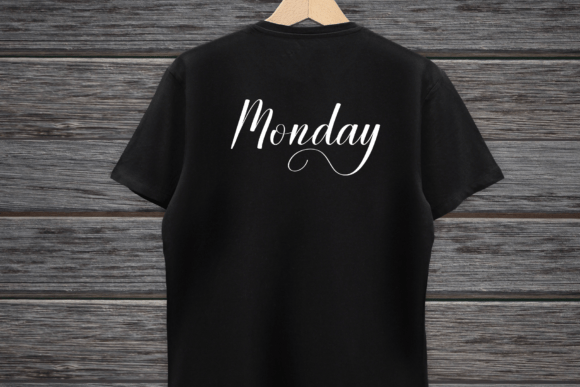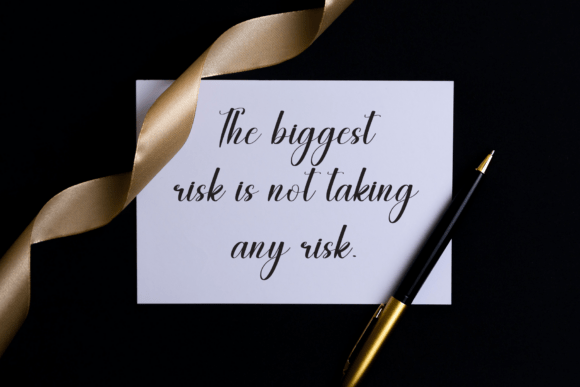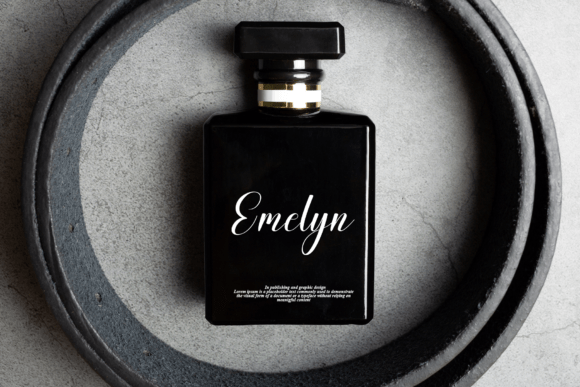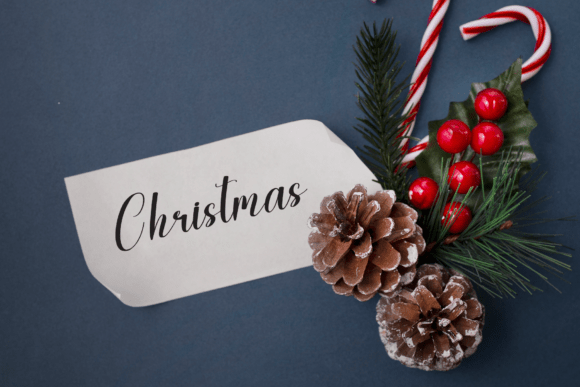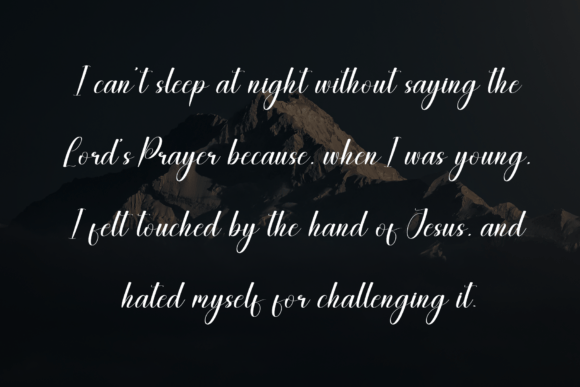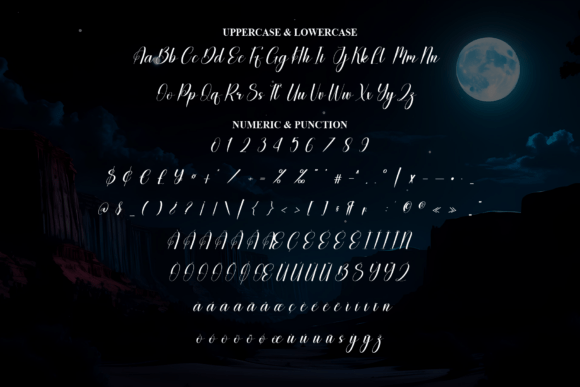
Introducing Black Moonight Font: The Ultimate Display Font for Sweet and Playful Designs
Are you looking for a font that can add a touch of sweetness and friendliness to your designs? Look no further than Black Moonight Font, a charming, handcrafted display font that is bursting with personality. This delightful font is perfect for designers and crafters who want to create fun and playful designs that leave a lasting impression.
A Font that Embodies Fun and Cuteness
Black Moonight Font is a one-of-a-kind display font that perfectly encapsulates the essence of fun and cuteness. Its unique charm makes it an ideal choice for personalizing wedding invitations, adding a whimsical touch to greeting cards, or enhancing any design that requires a dash of delightful vibrancy. Whether you’re a designer, crafter, or DIY enthusiast, this font is sure to inspire your creativity and take your designs to the next level.
Seamless Blend of Fun and Functionality
What sets Black Moonight Font apart from other display fonts is its ability to seamlessly blend fun and functionality. This font is not just a pretty face; it’s also highly versatile and easy to use. Whether you’re creating a wedding invitation, a greeting card, or a social media graphic, Black Moonight Font is the perfect choice. Its playful and whimsical design ensures that your project will stand out from the crowd and leave a lasting impression on your audience.
Black Moonight Font is a versatile font that can be used for a wide range of design projects. Here are just a few ideas to get you started:
- Blog headers and titles
- DIY crafts and scrapbooking
Why Choose Black Moonight Font?
So why choose Black Moonight Font over other display fonts? Here are just a few reasons:
- Unique and charming design
- Highly versatile and easy to use
- Perfect for a wide range of design projects
- Seamlessly blends fun and functionality
- Leaves a lasting impression on your audience
Tips for Using Black Moonight Font
Here are a few tips for using Black Moonight Font in your designs:
- Use it as a headline or title font to add a touch of whimsy and fun
- Pair it with a simpler font for body text to create contrast and visual interest
- Experiment with different colors and textures to add depth and dimension
- Use it to create custom illustrations and graphics